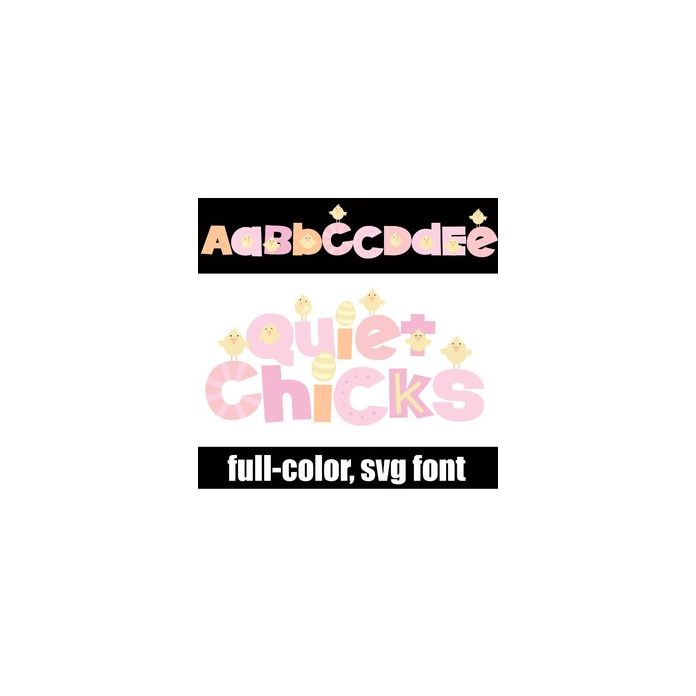
This full-color font features adorable chicks, eggs, and a pastel color palette. There is an alt version you can access through your system's character map that contains additional colors of all the letters.